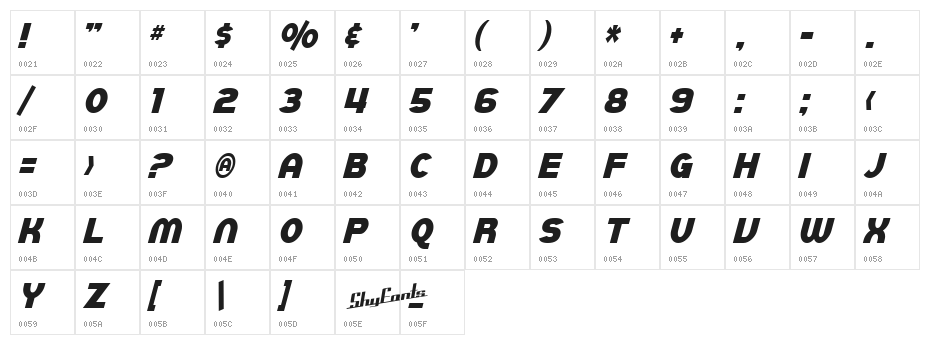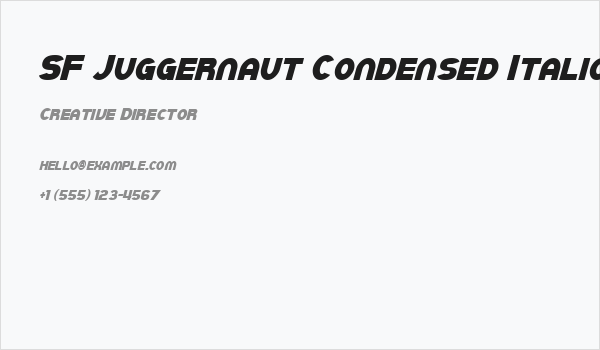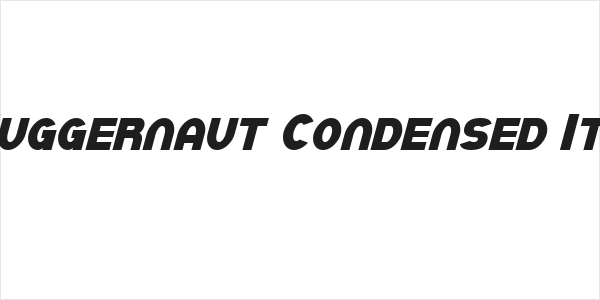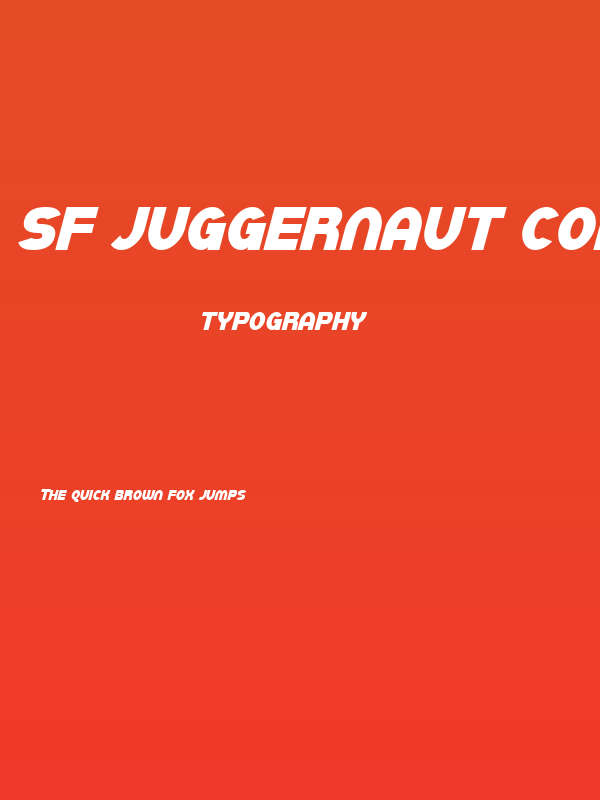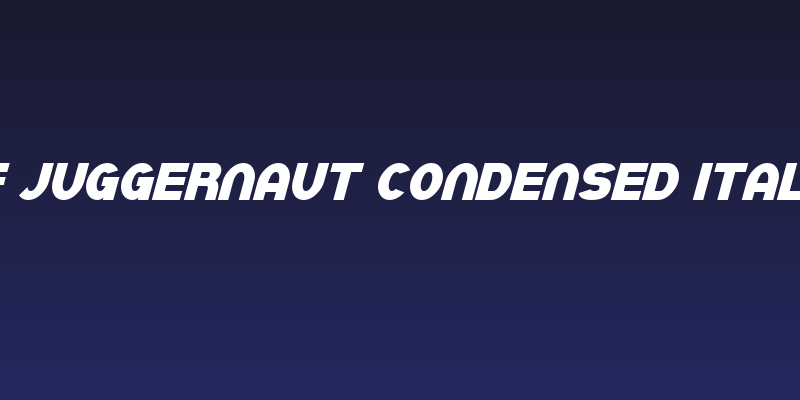
SF Juggernaut Condensed Italic Font
SF Juggernaut Condensed Italic Description
This font features a bold and dynamic style with a condensed and italicized form. The characters are designed with a forward-leaning slant, giving a sense of motion and urgency. The strokes are thick and consistent, providing a strong visual impact. The overall appearance is modern and sleek, making it suitable for attention-grabbing headlines and titles. The uppercase and lowercase letters maintain a uniform height, enhancing readability while the numbers and special characters are crafted to match the bold aesthetic.